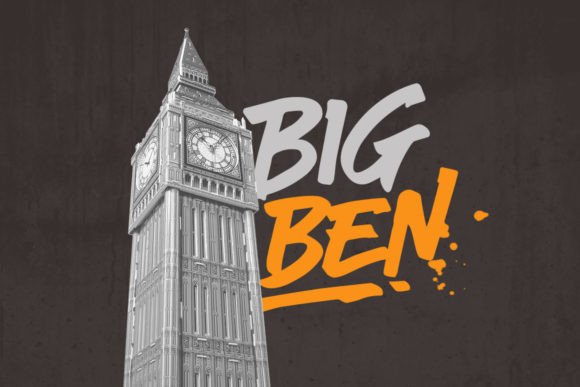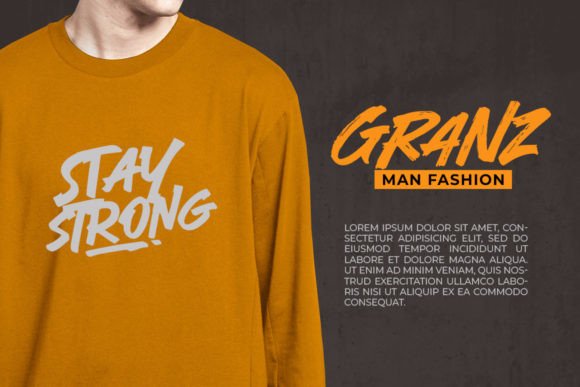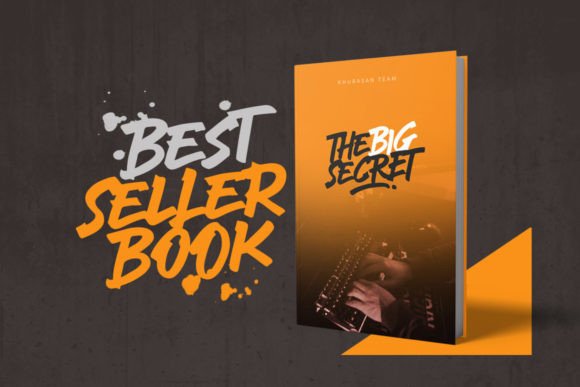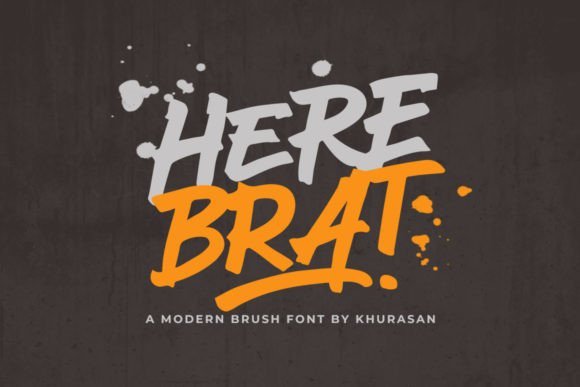
Introduction to Here Brat Font
Here Brat is a modern brush font perfect for posters, logos, magazines, book covers, banners, and many more.
Get this quirky display font, and use it to create lovely designs .